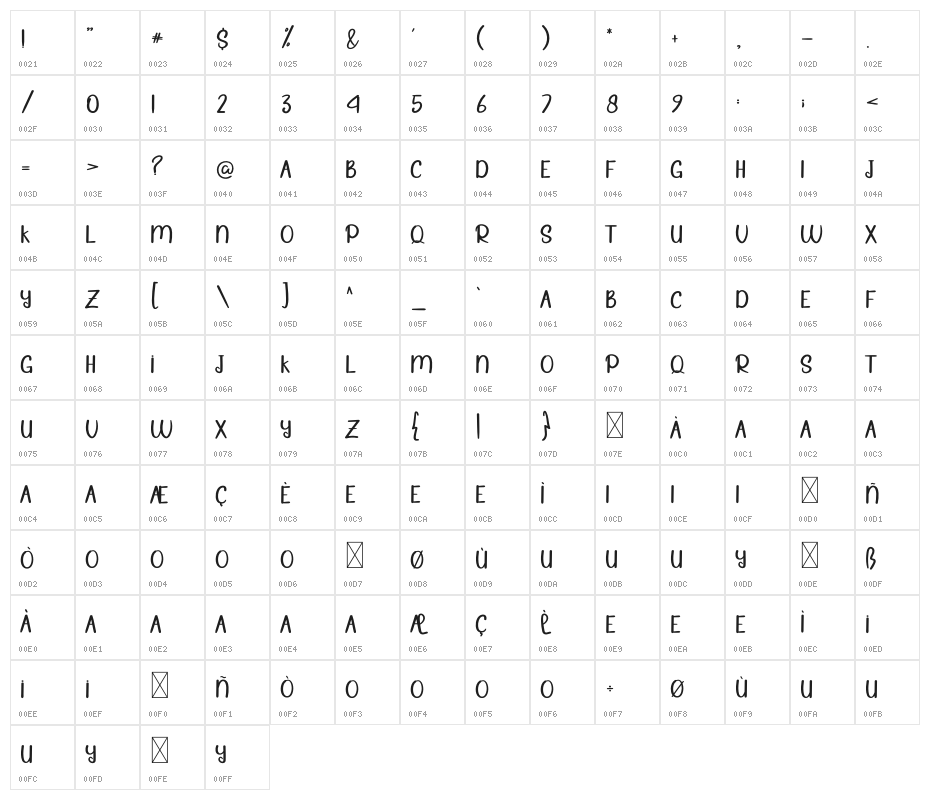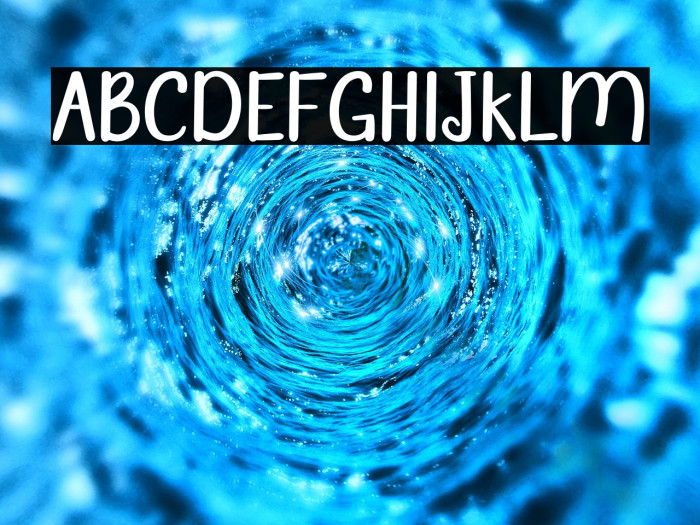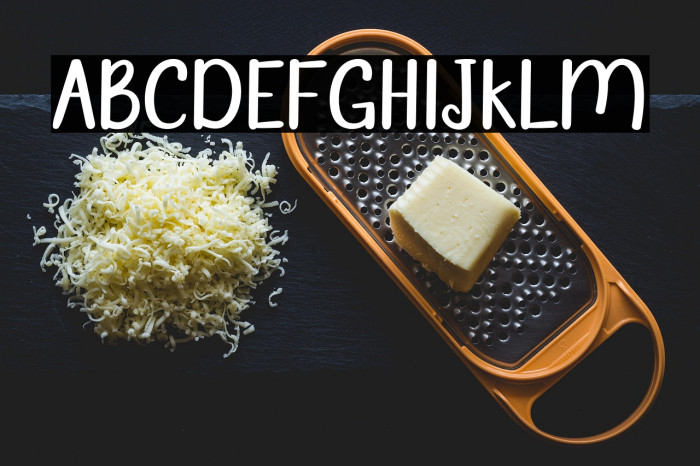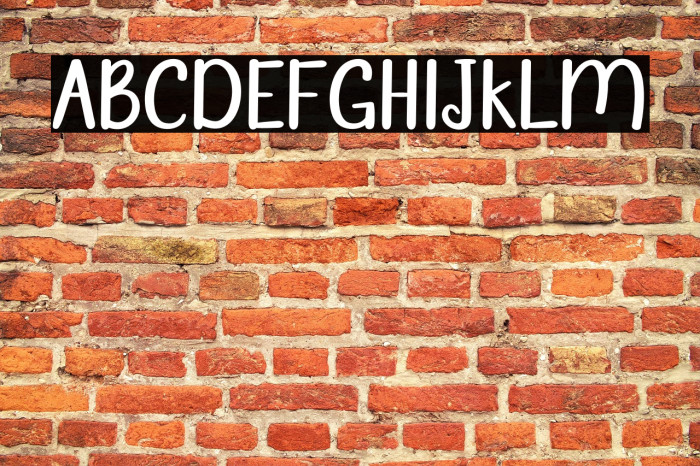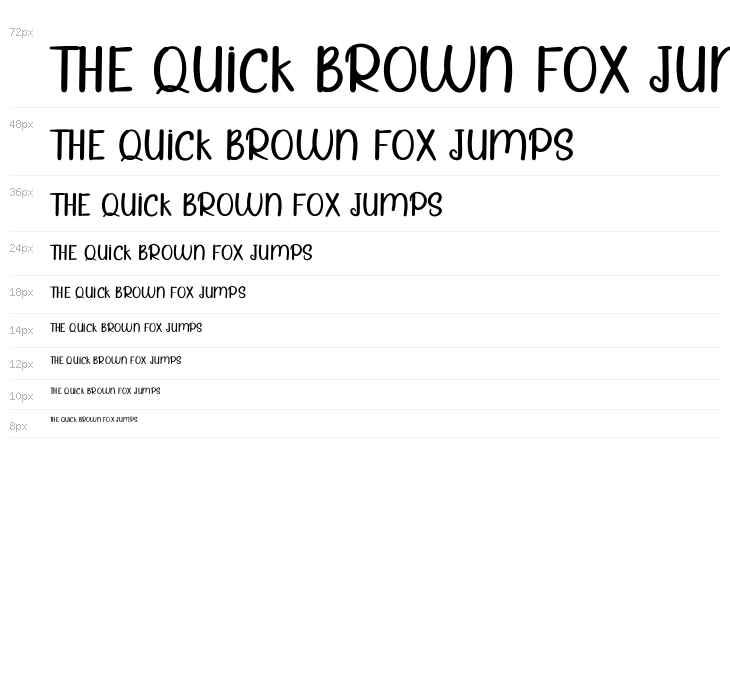
Summer Girl Font
Summer Girl Description
A playful, handwritten-style font with a casual and friendly appearance. The letters are slightly rounded with a consistent stroke width.
| Proposed Projects | Greeting cards, children's books, casual invitations. |